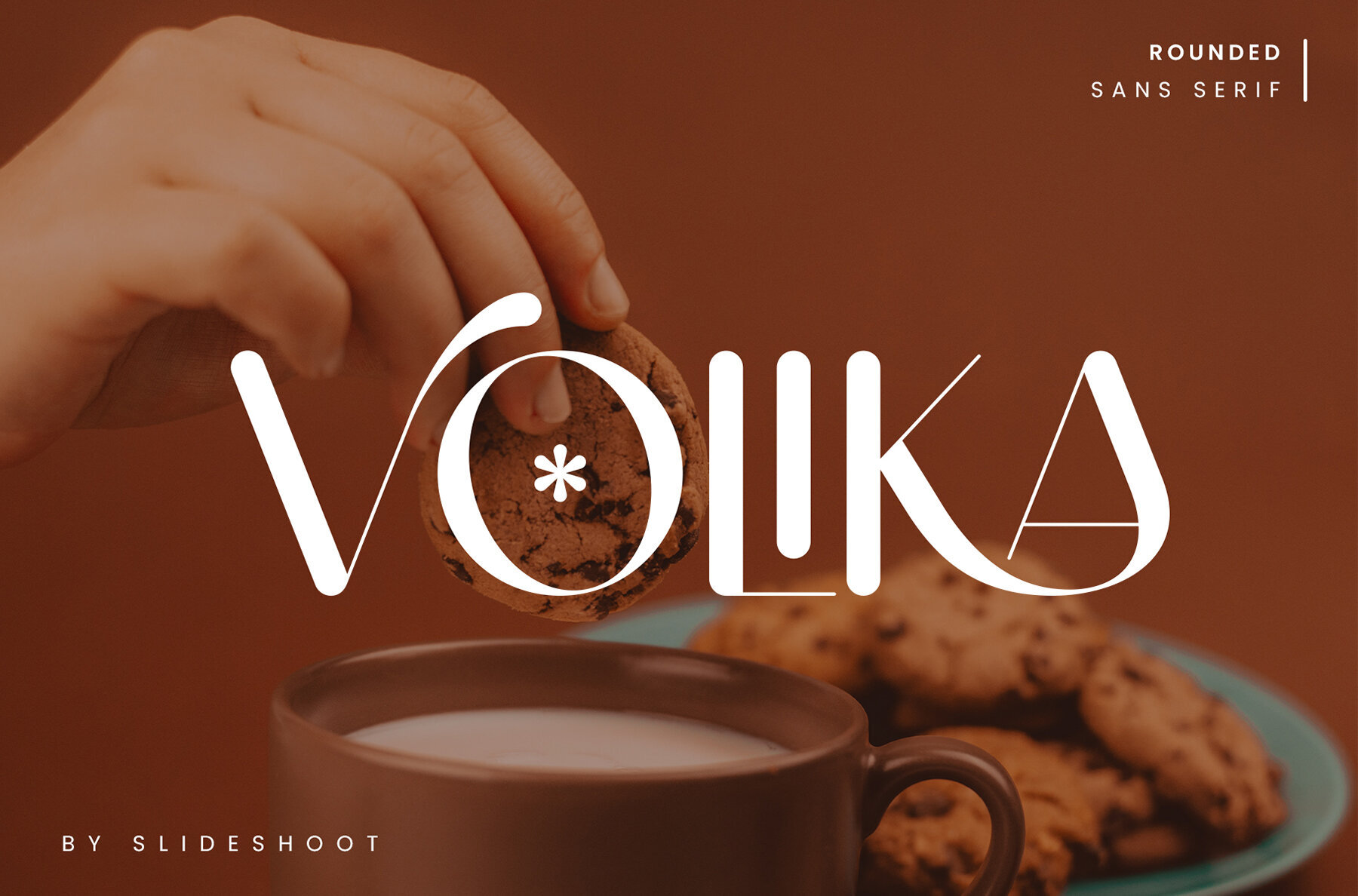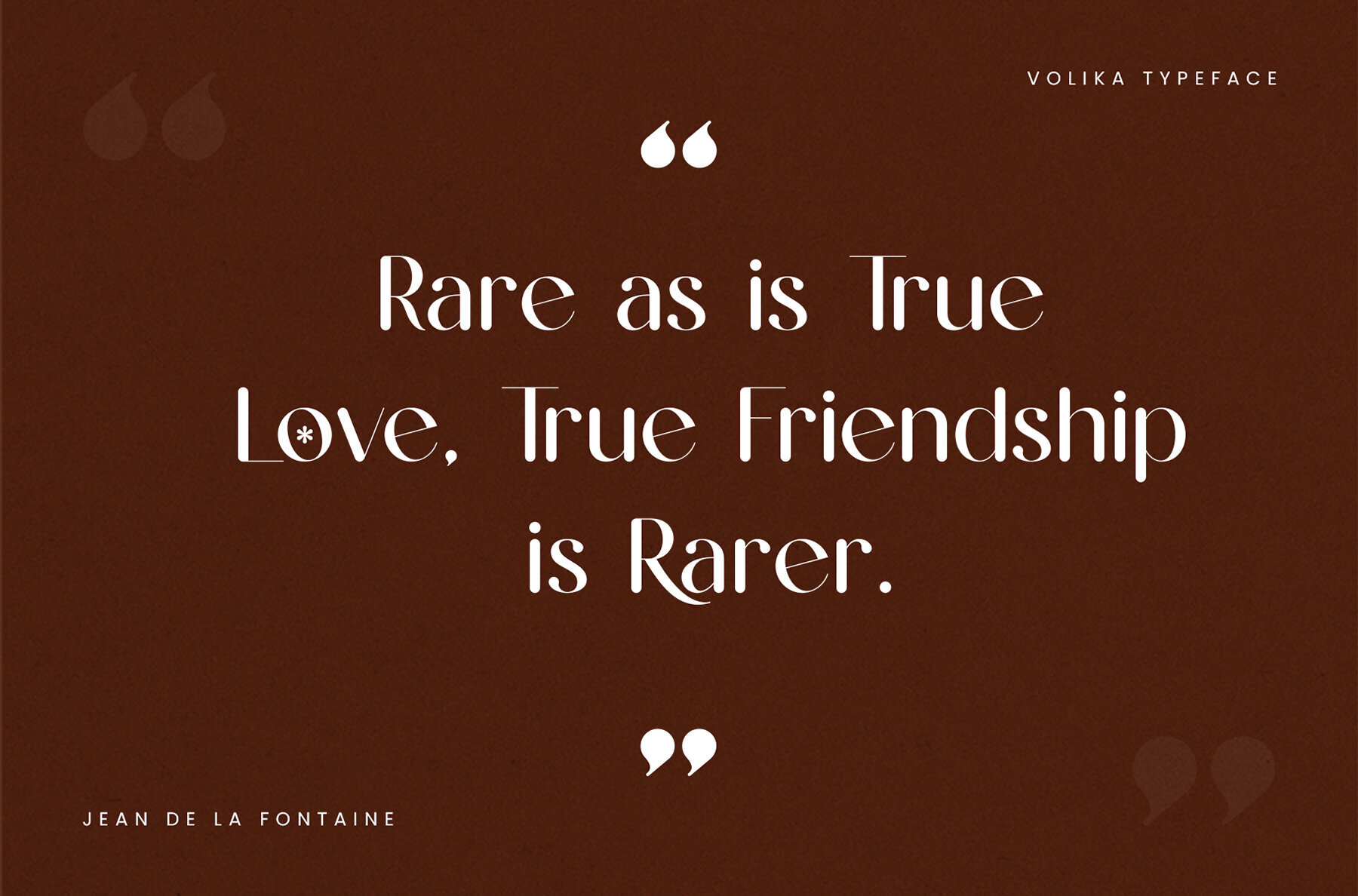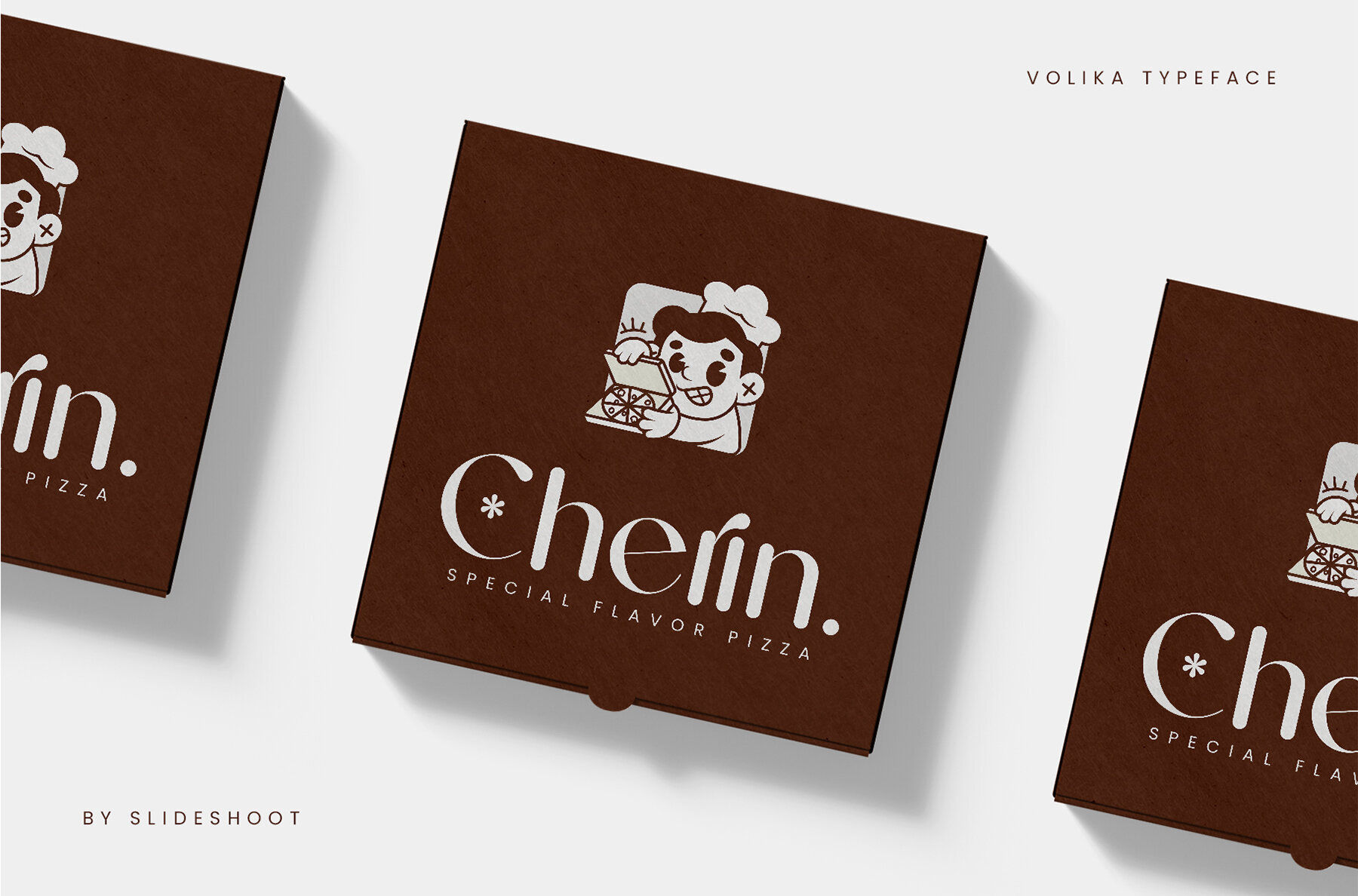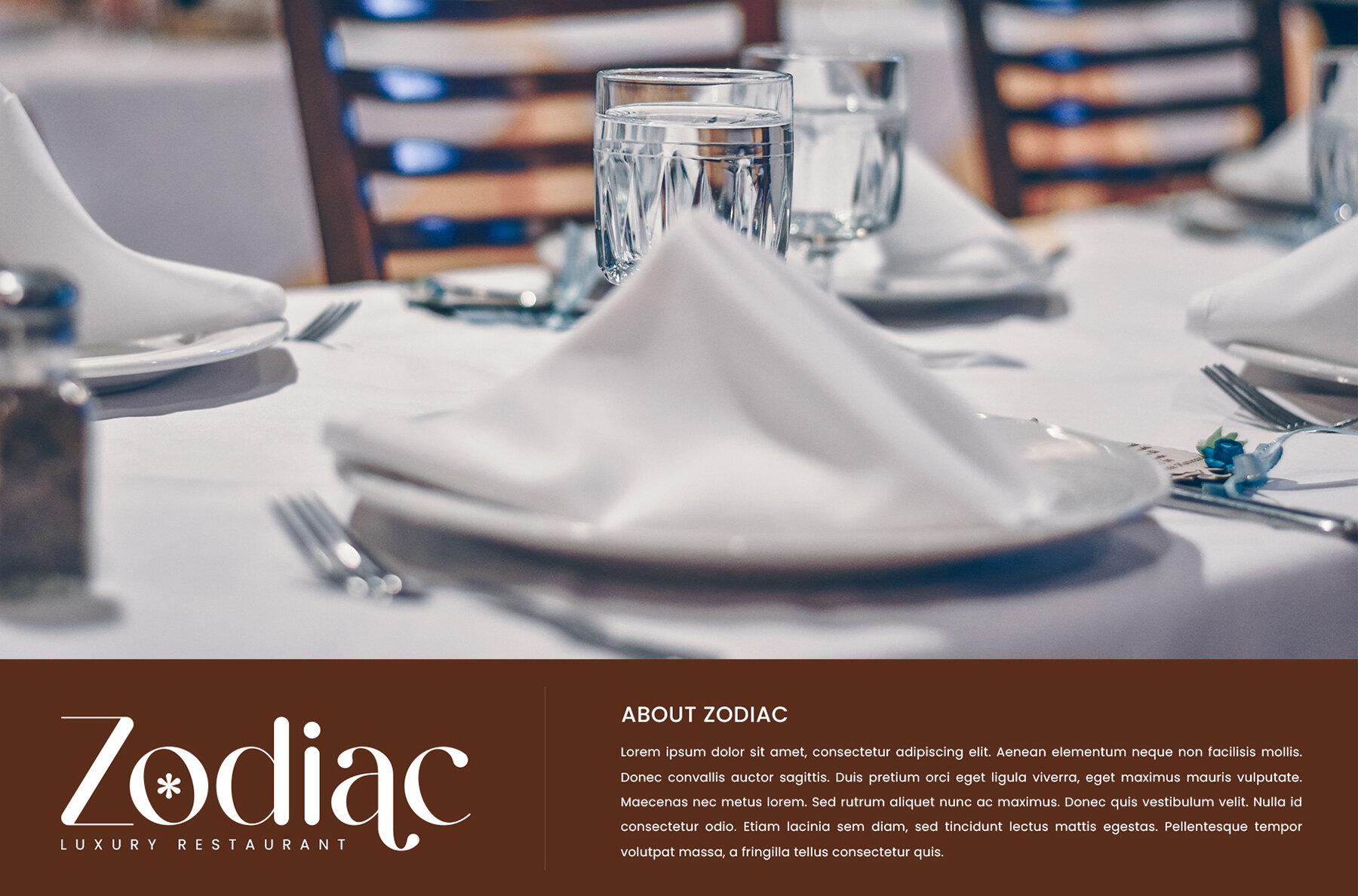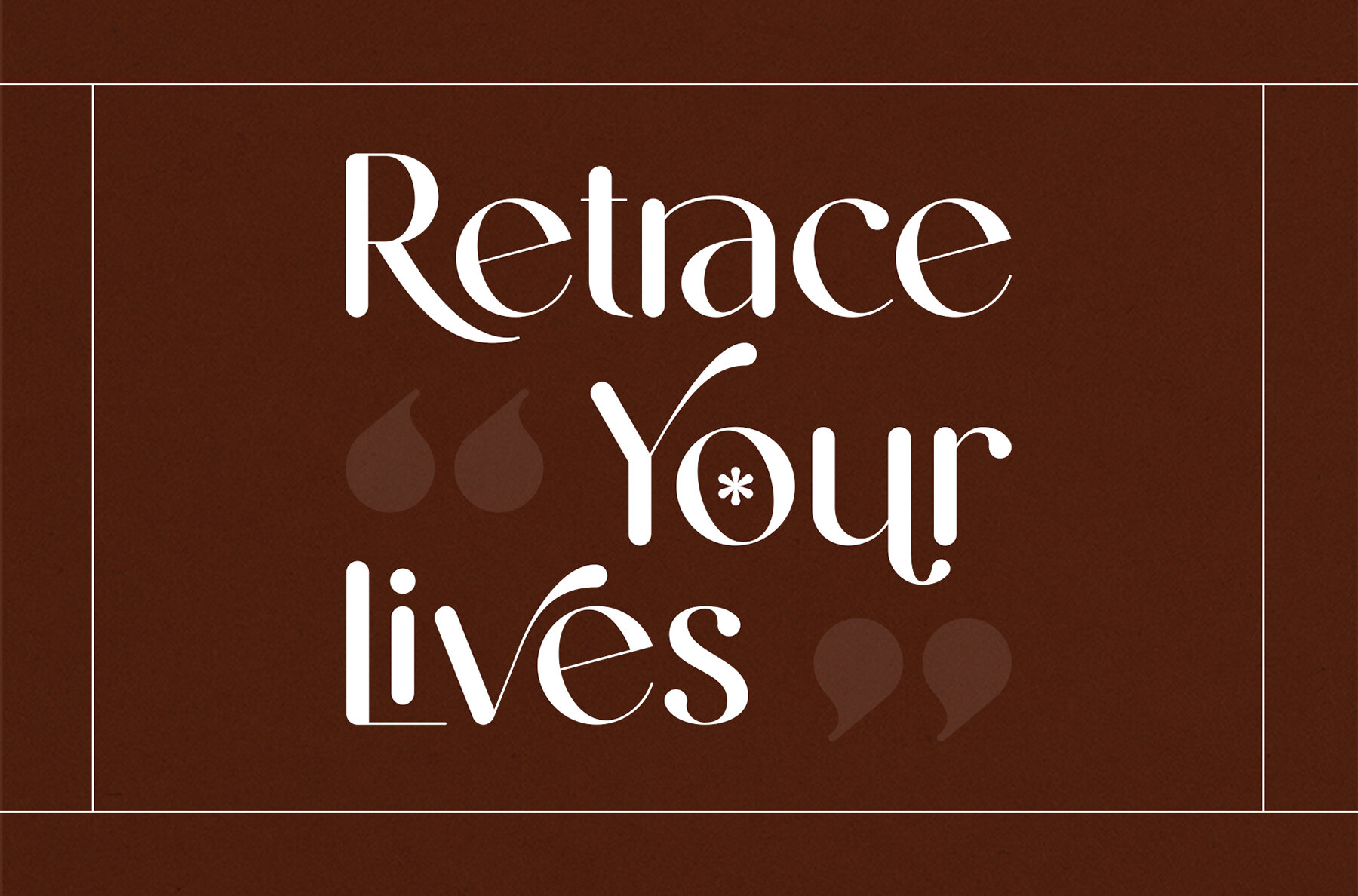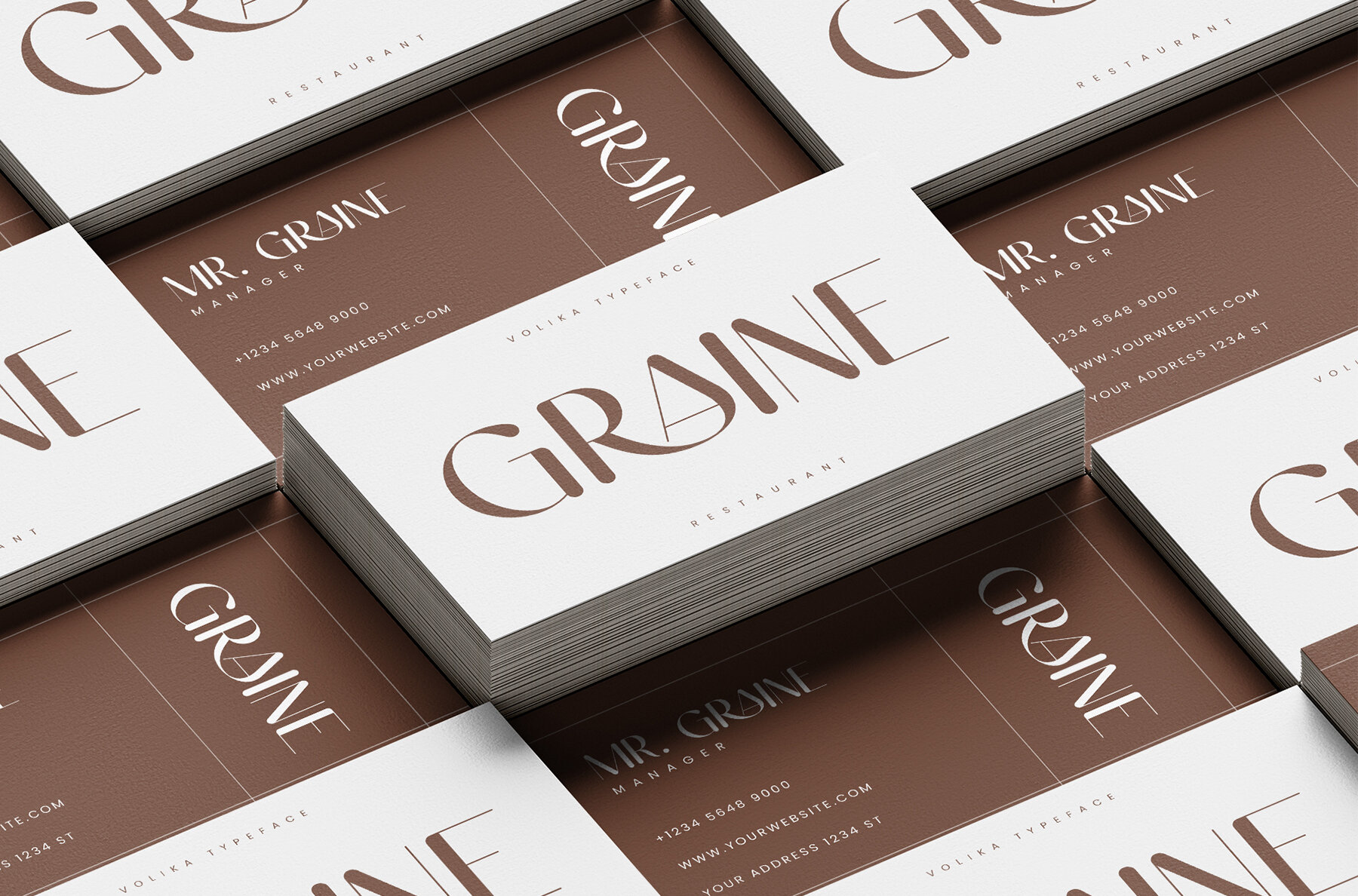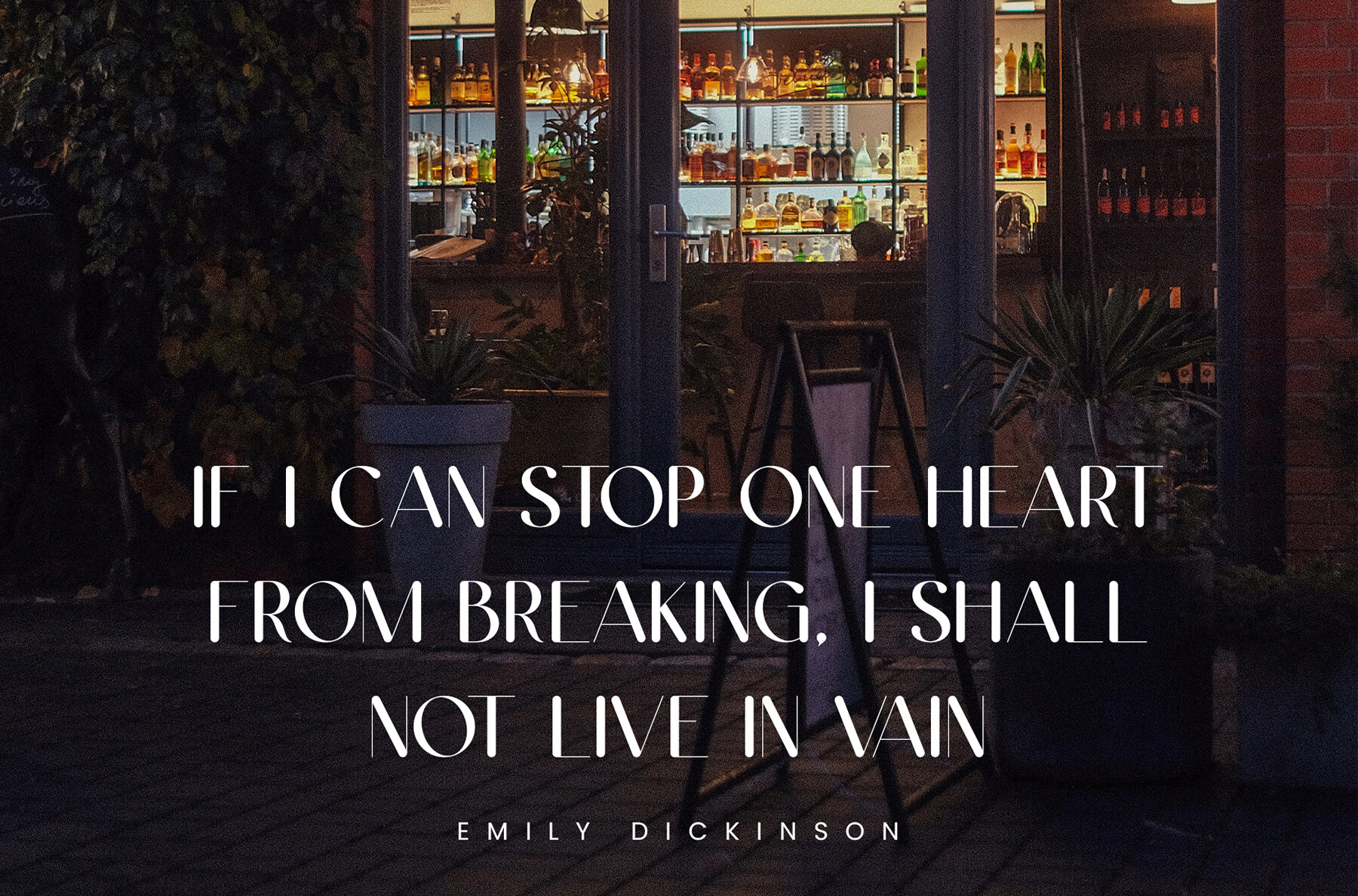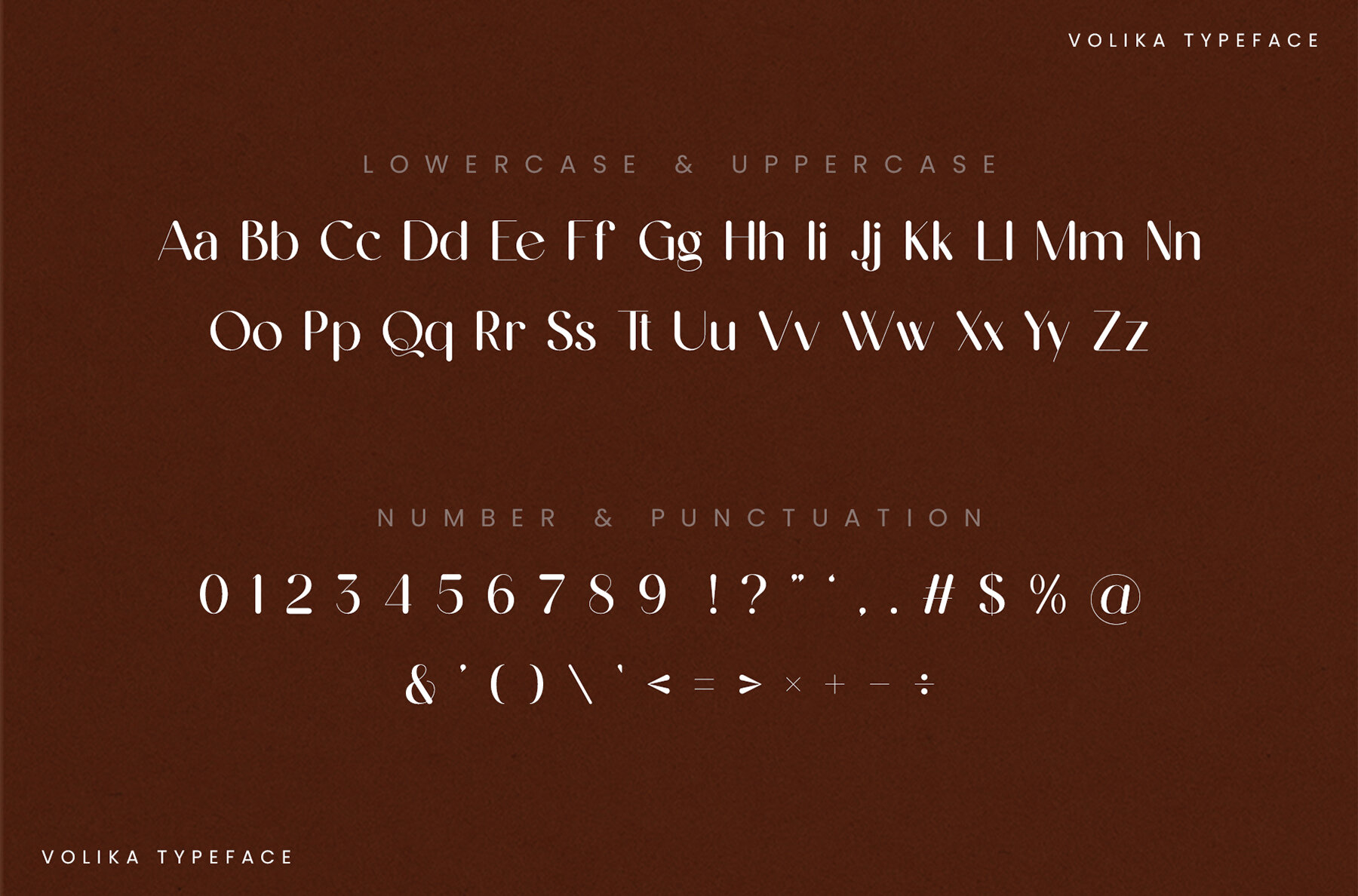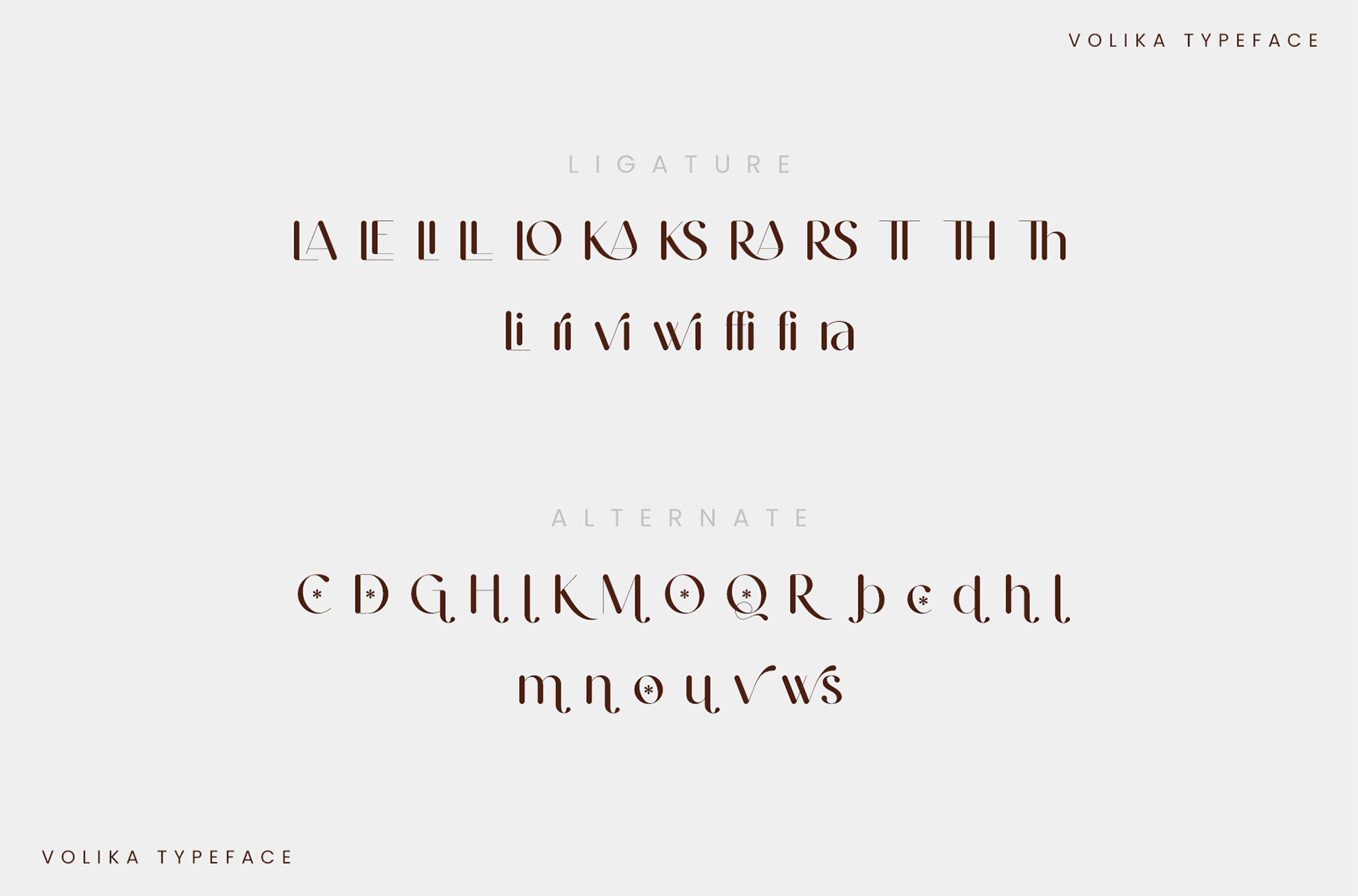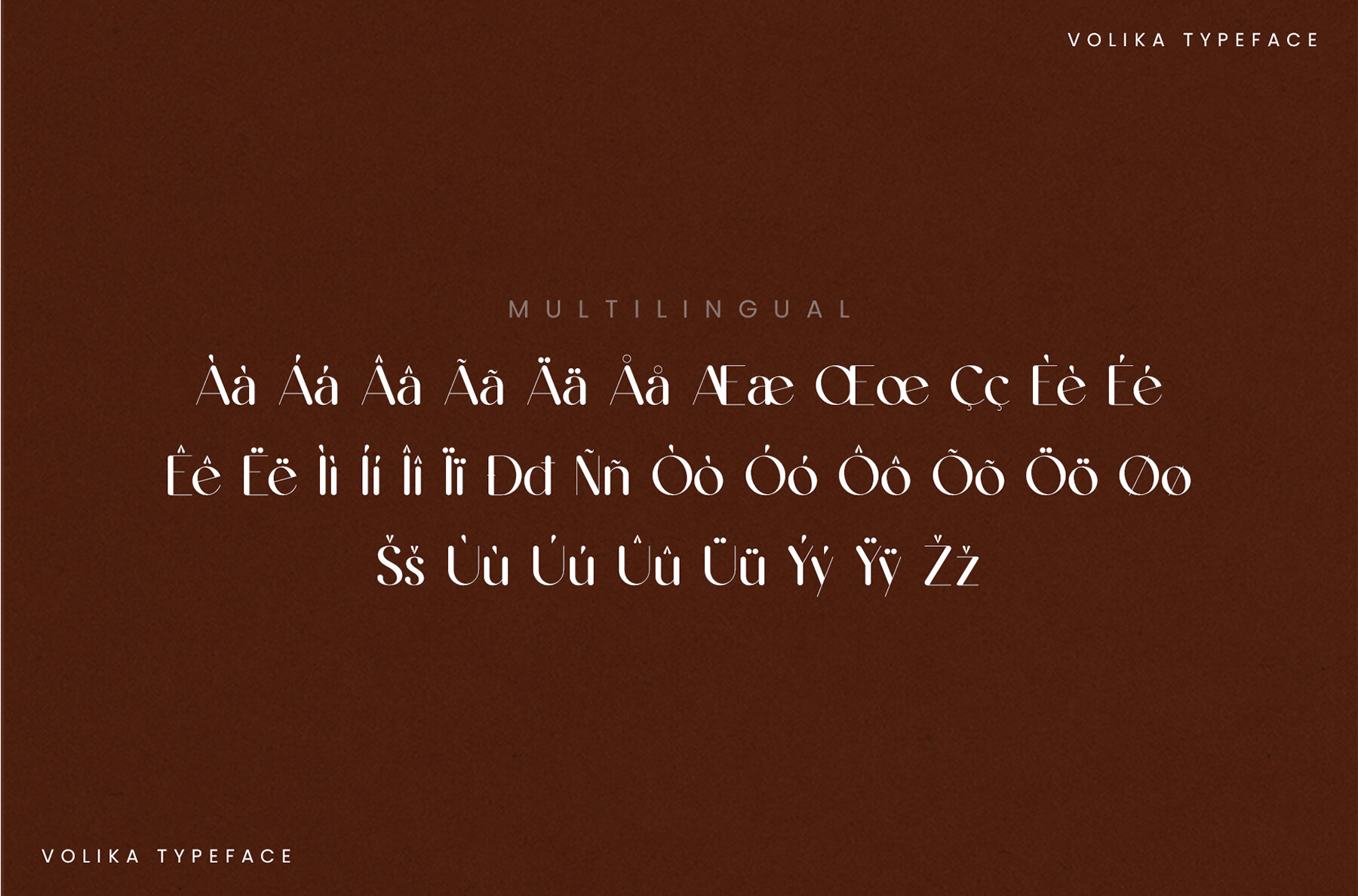
Volika Font
Volika Regular
This font is characterized by its geometric shapes and monoline weight, offering a modern and polished look. Its clean lines and uniform stroke widths give it a distinctly contemporary and minimalistic feel, making it well-suited for high-impact headlines and branding that require both legibility and style. The typeface's simplicity and versatility make it an excellent choice for graphic designers looking to project sophistication without ostentation.